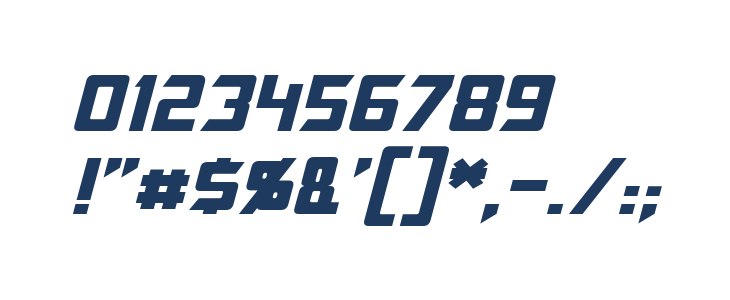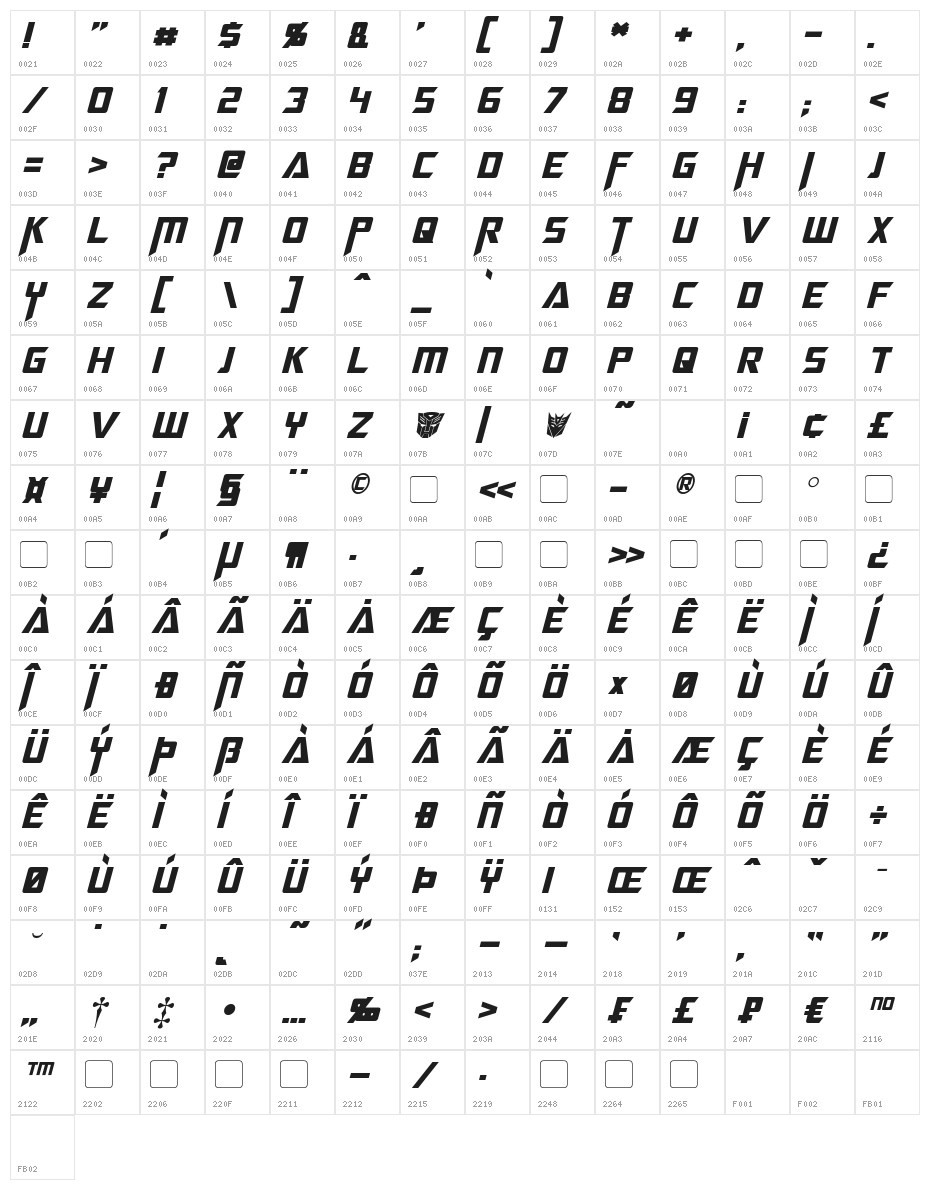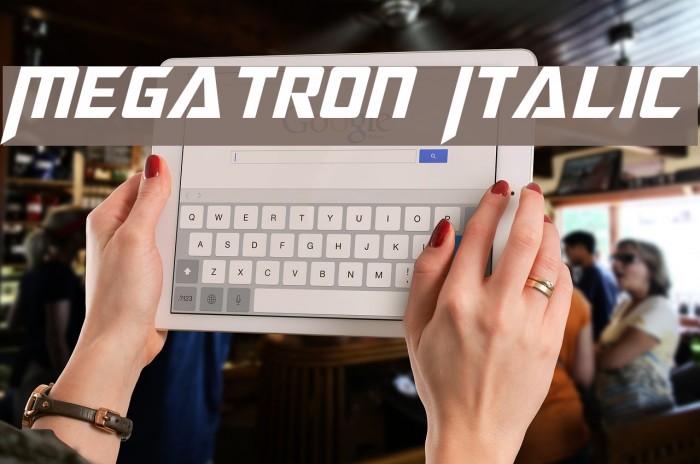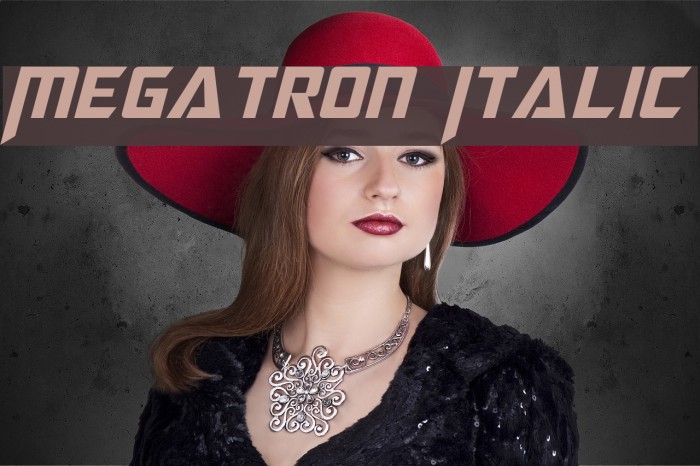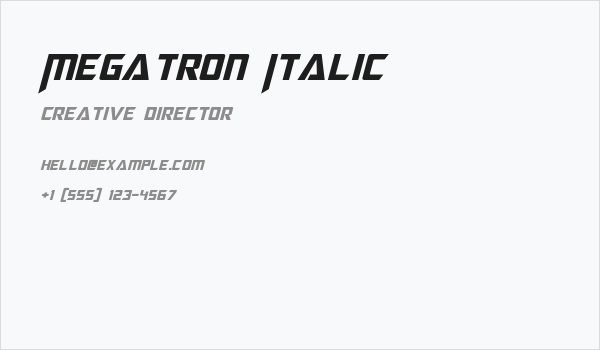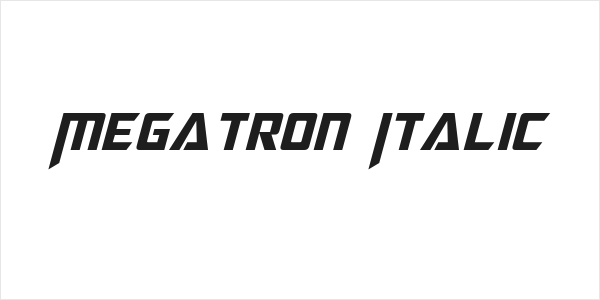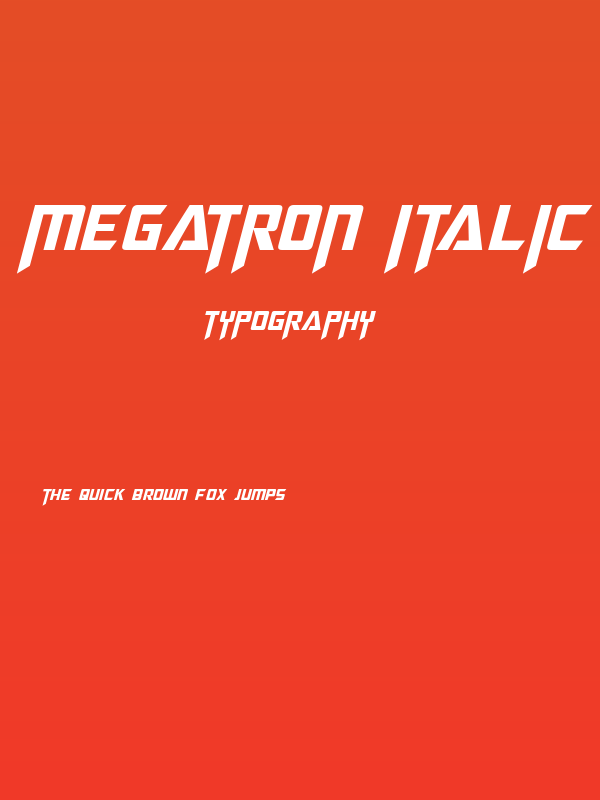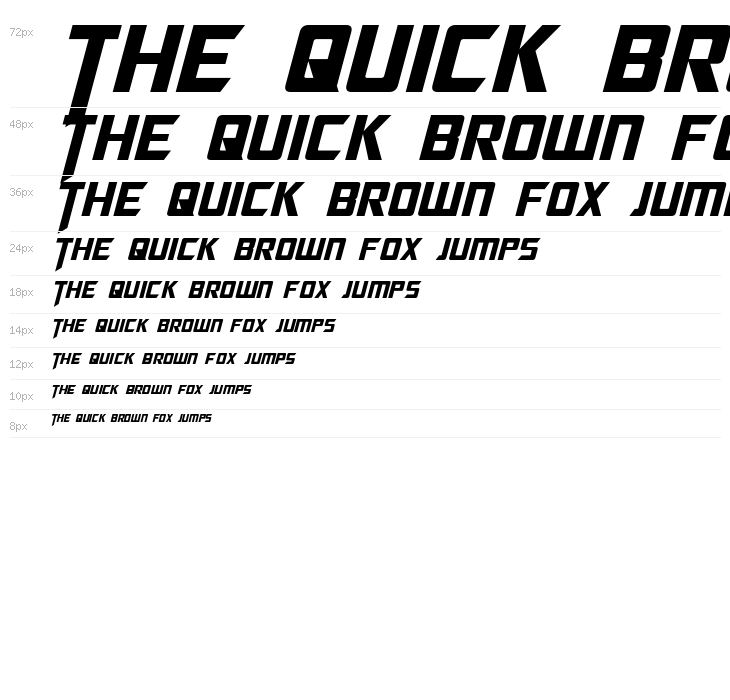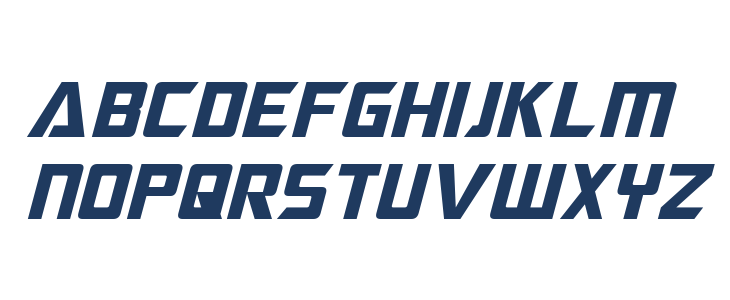
Megatron Italic Font
Megatron Italic Description
This font features a bold, futuristic design with sharp angles and a strong, dynamic presence. The characters are italicized, adding a sense of motion and speed. The uppercase and lowercase letters maintain a consistent style, with a geometric structure that emphasizes straight lines and pointed edges. The numerals and special characters follow the same aesthetic, ensuring uniformity across all glyphs. This font is ideal for projects that require a modern and edgy look, such as technology branding, sci-fi themes, or action-oriented designs.
| Proposed Projects | Ideal for technology branding, sci-fi themes, action-oriented designs, and modern advertising. |